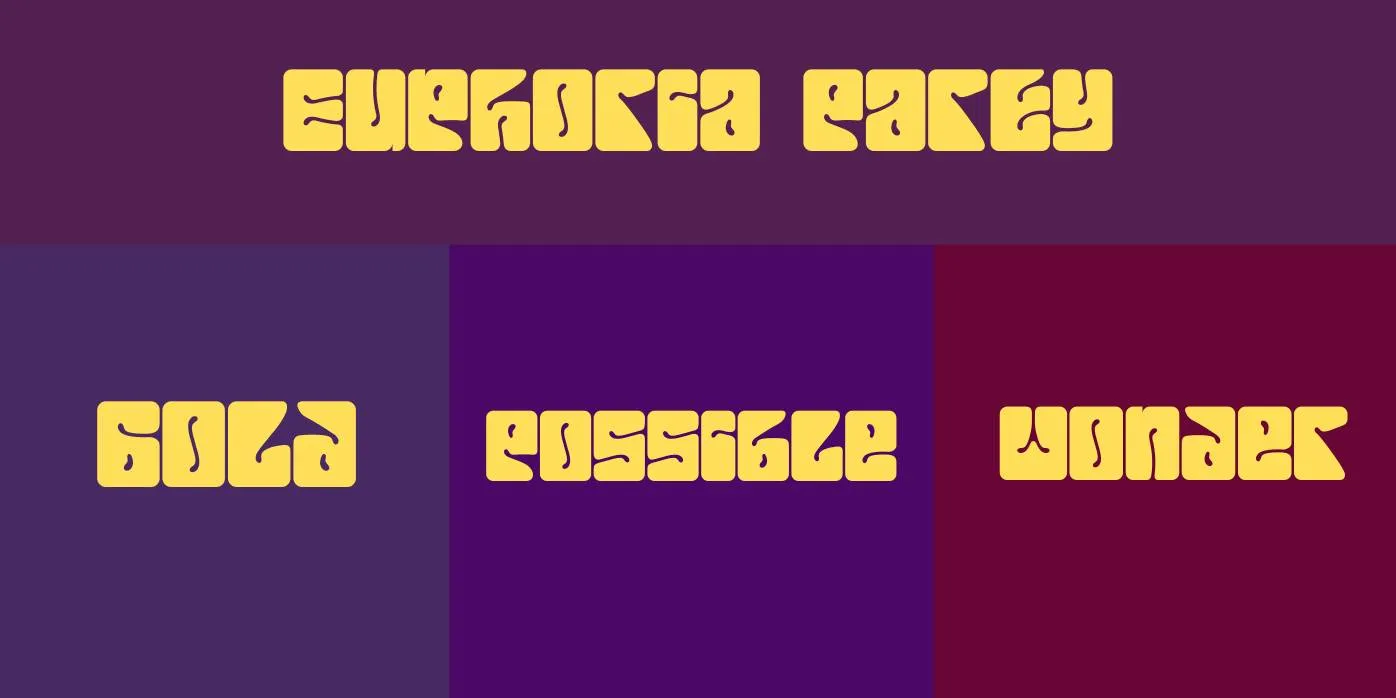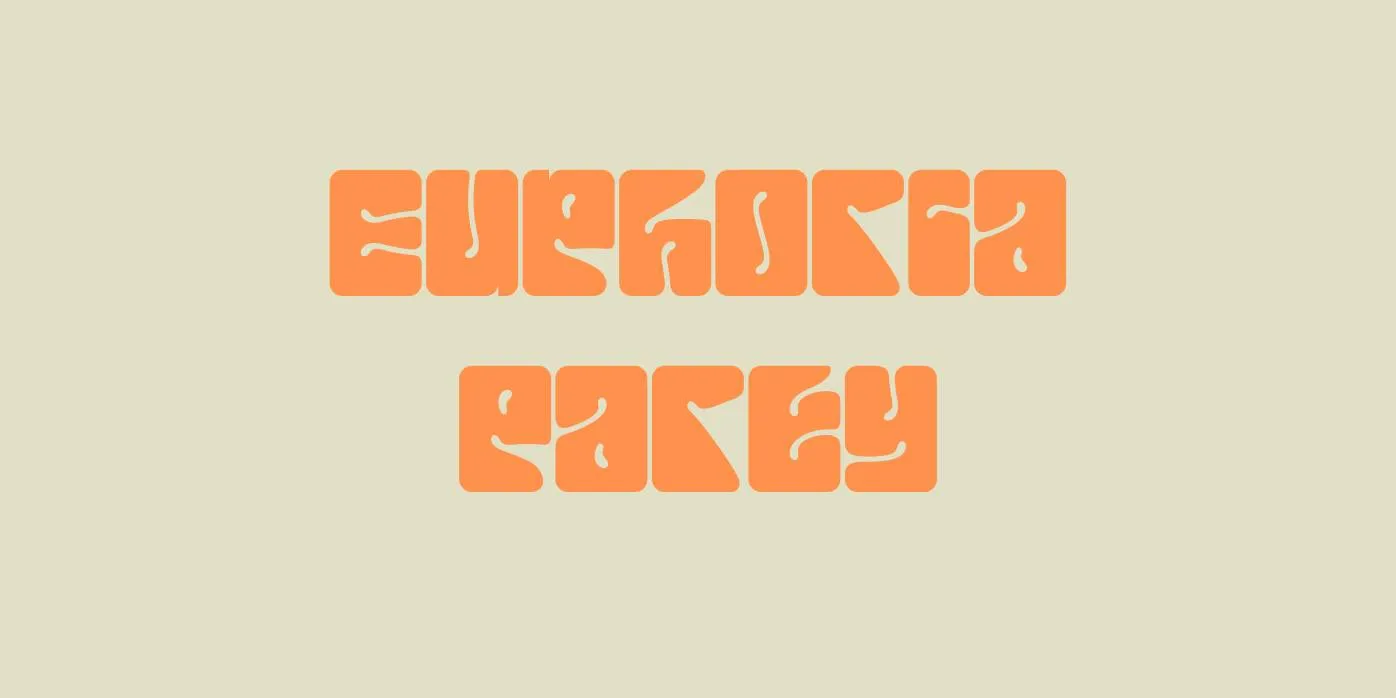
Euphoria Party Font
Here we discuss detailed information about a very unique and colorful typeface Euphoria Party Font. This is a very interesting font and it was inspired by 1960s music albums. This stunning font is designed by Putra Novembrai Candra Kusuma and manufactured by Putracetol Studios Karanganyar. It has ultimate features which makes it look perfect for so many different projects.
Usage It is a very interesting font with a very unique and different look. So many attractive projects can be made by using this font. It has a touch of old music albums with a bold look which makes it perfect for attractive headlines. Its funky alphabets makes it look perfect for making amazing music albums, movie posters, banners, and flyers.
You can also use this font for making eye-catching logos for any music and other brands. It has a groovy and colorful impression which looks so good on every project. To make designs on fabrics, T-shirts, trousers, and other items like mugs and stickers it can also be used. This stunning typeface is a good choice For making greeting cards and writing quotes.
FAQs! What is Euphoria party font? This stunning font is inspired by the music albums of the 1960s. you can use it for making so many colorful projects to give an attractive look.
It has a very bold look which makes it look stronger for any project. Who is the designer of Euphoria Party Font? Euphoria Party Font is designed by Putra Novembrai Candra Kusuma and manufactured by Putracetol Studios Karanganyar. Is Euphhoria party Font safe to use on my PC and Mac?